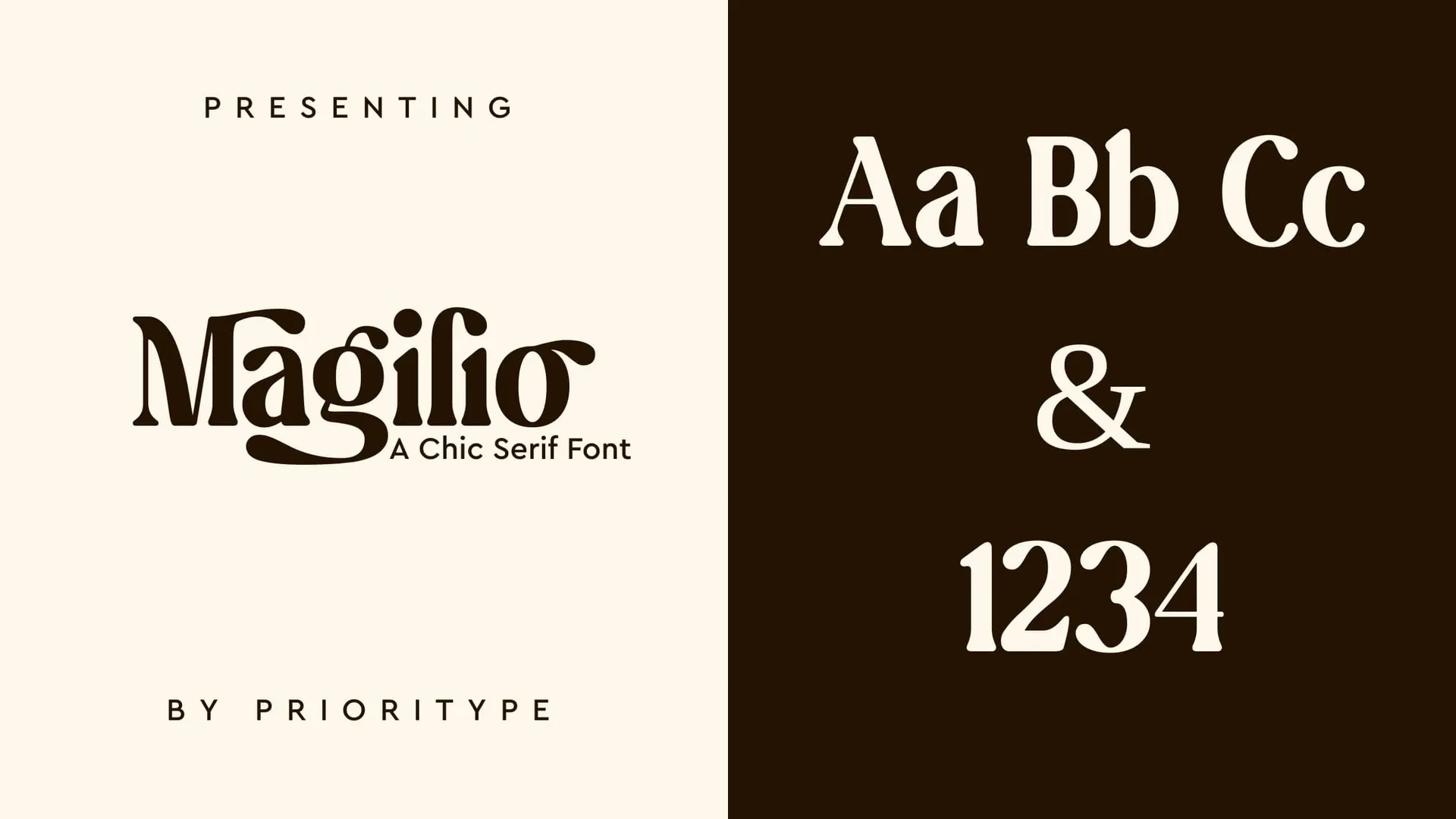
About Magilio Font
During the first half of the 20th century, best-selling books were often set in a serif font. Many of these fonts are still widely used today; Magilio Serif is one of them. Magilio is a display serif font with a modern and classy look. It has a lot of classic glyphs that were made in a modern way. Many different characters were used to make Magilio easier for you to do various design projects and have fun while you typed. Free Download Magilio Font is available for personal use only.
Prio Nurokhim Aji Designed this amazing vintage serif font and published by Prioritype. With a large number of language support, Magilio font will give you fun while typing.
A beautiful and gentle typeface in a modern style, Magilio has the ability to make your design ideas seem trendy, stylish, and magnificent.
You may use Magilio font in designs like social media posts, logos, merchandising, book covers, posters, video content thumbnails, quotations, landing sites, wedding invites, and many other things.
But Experts say that the Magilio font is perfect for Book covers and wedding cards.
Magilio Font Combination
Magilio + Open Sans
Font combinations are a great way to give life to your designs. Fonts that complement one another can impart a feeling of elegance, simplicity, playfulness, boldness, or any other emotion you want your design to portray.
Is Magilio A Good Font?
Yes, Magilio is good for print and on-screen use that offers a modern, distinctive and stylish design.
What Type Of Font Is Magilio?
Magilio is a display serif font with a modern and classy look.